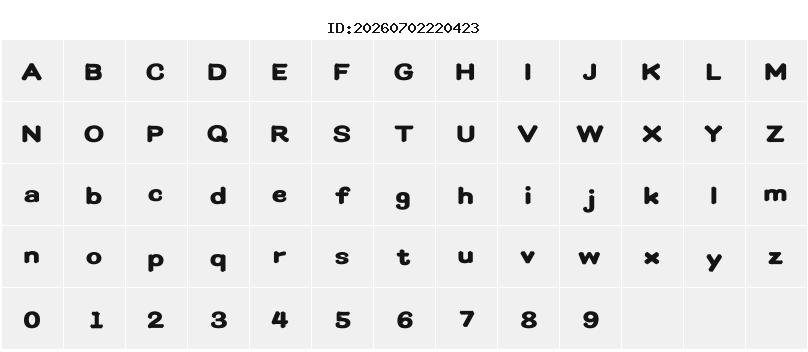
160-上首混沌体 Preview
• Font Name: 160-上首混沌体
• Font ID: 160-SSHunDunTi:Version 6.00
• Full Font Name: 160-上首混沌体
• Version: Version 6.00 July 12, 2022
• PostScript Name: 160-SSHunDunTi
• Character Count: 7569
• Manufacturer: 上首造字
About 160-上首混沌体.ttf
160-上首混沌体.ttf is a modern, elegant sans-serif font designed for ultimate readability and visual harmony. Perfect for branding, headlines, web design, and print materials.